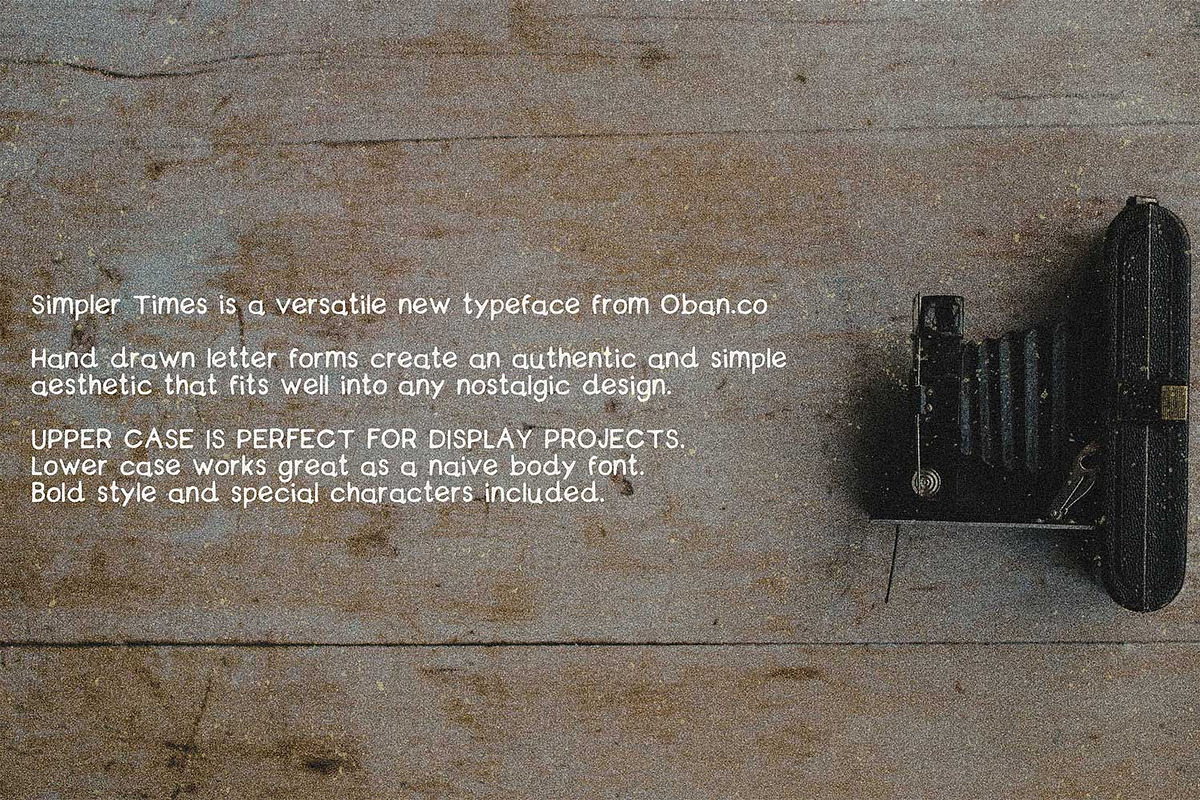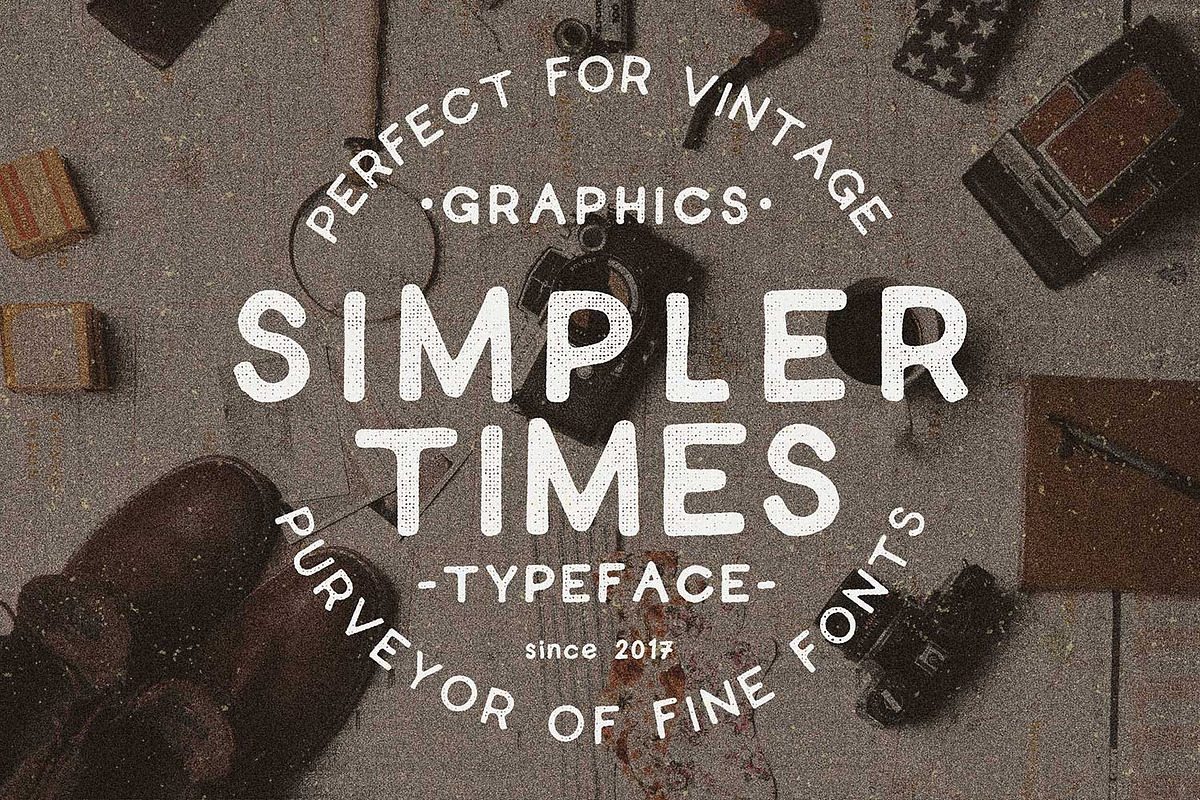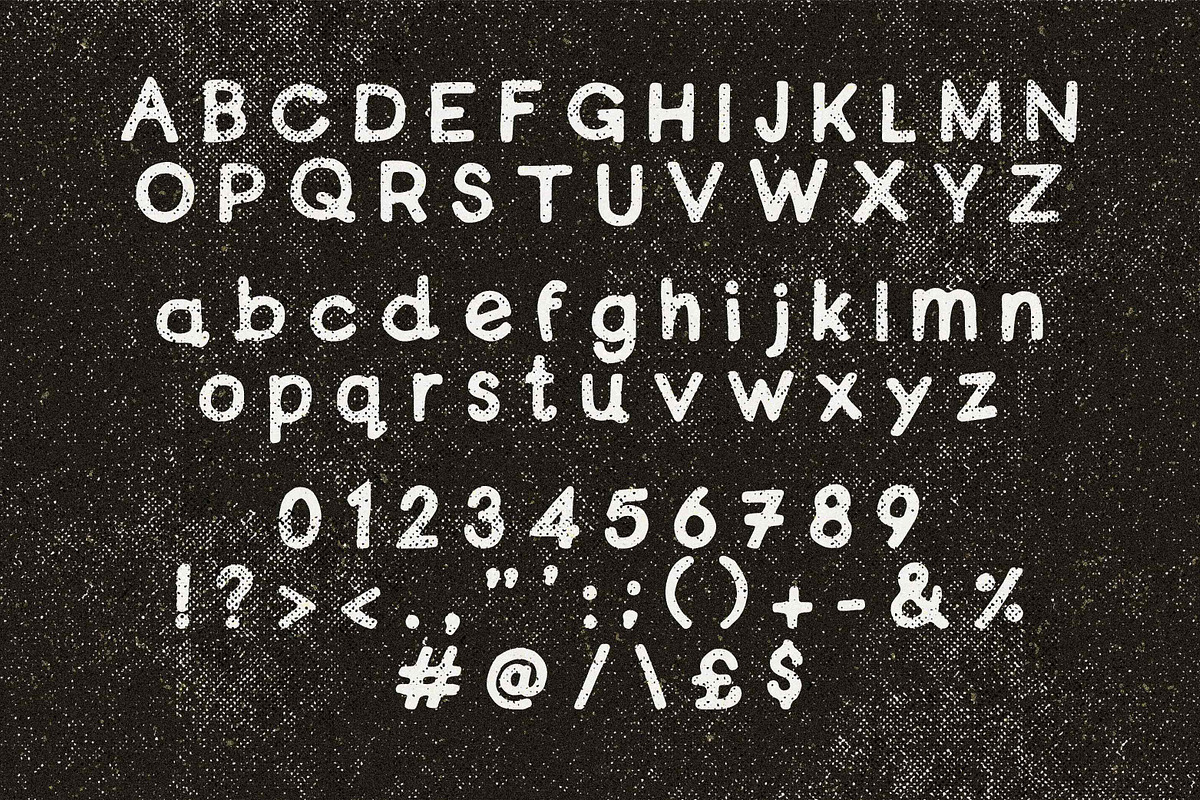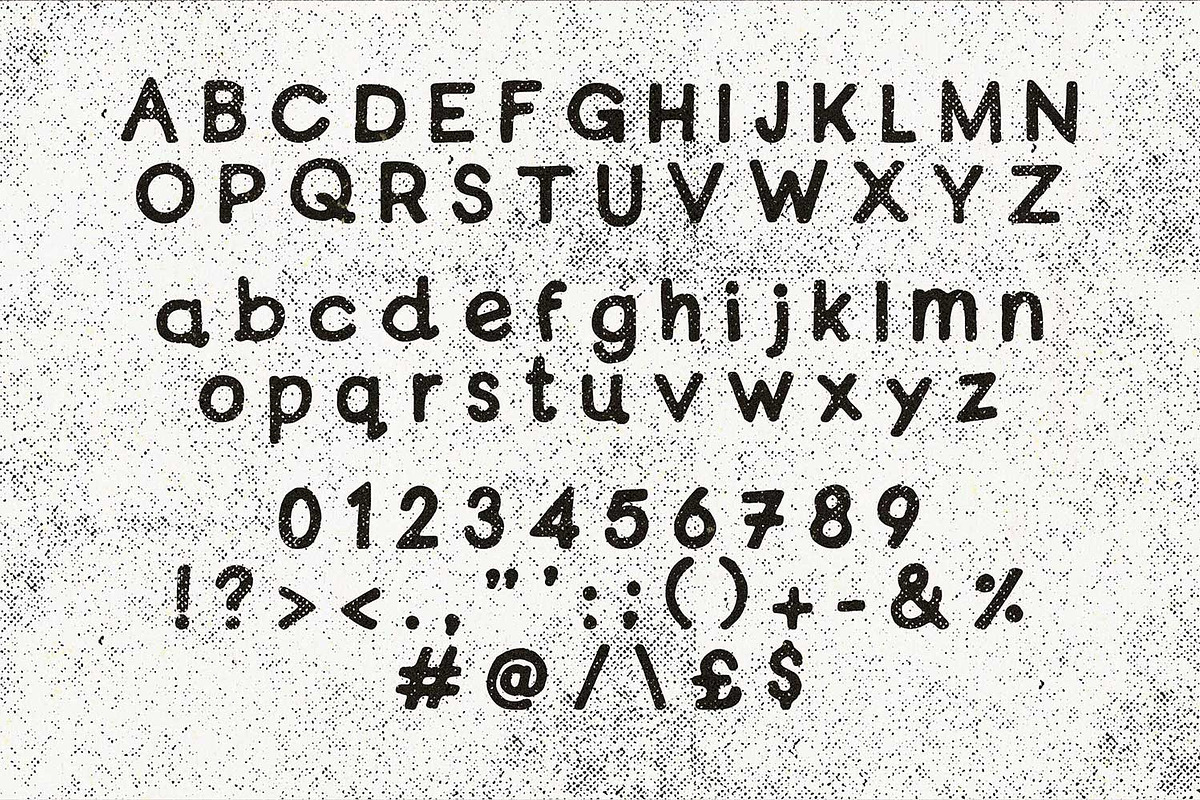
Simpler Times Typeface
Simpler times is versatile new typeface from Oban.co
Hand drawn letter forms create an authentic and simple aesthetic that fits well into any nostalgic design.
- Bold style and special characters included.
- Simpler Times Bold
Simpler Times Typeface by Oban Jones fits naturally into Branding, posters, packaging, typography.